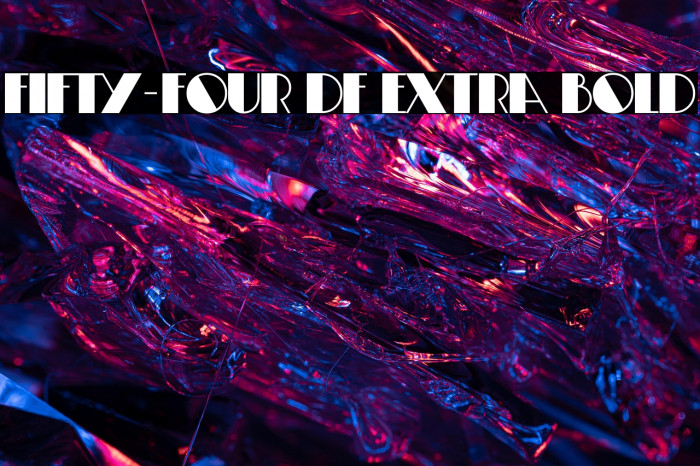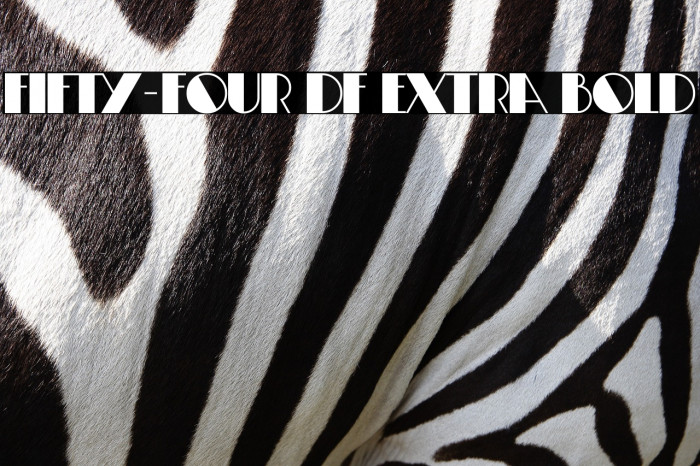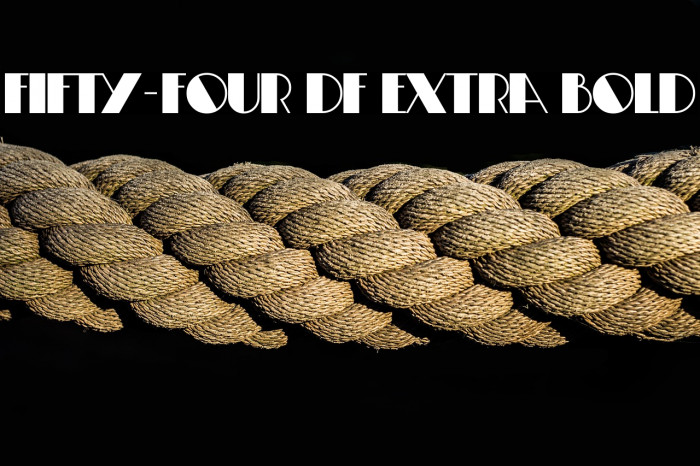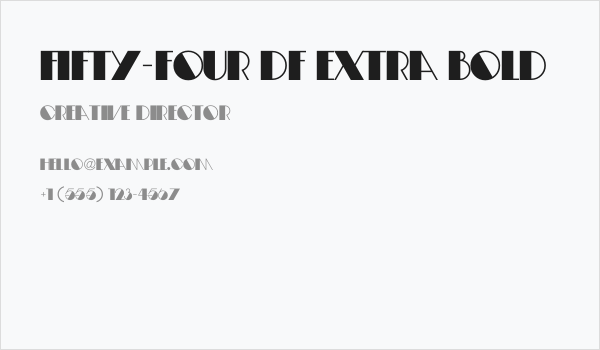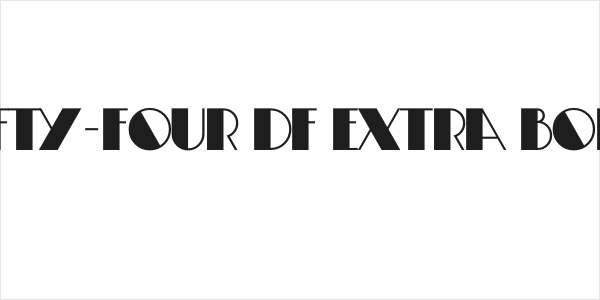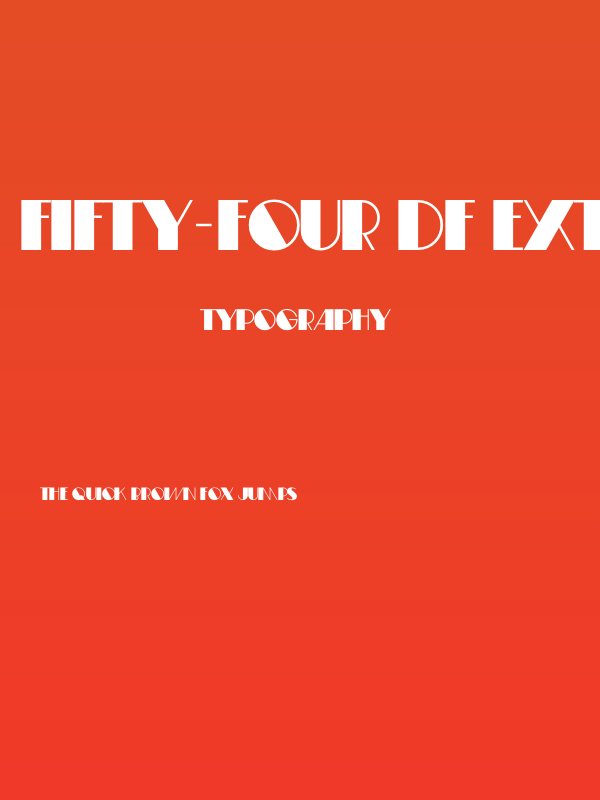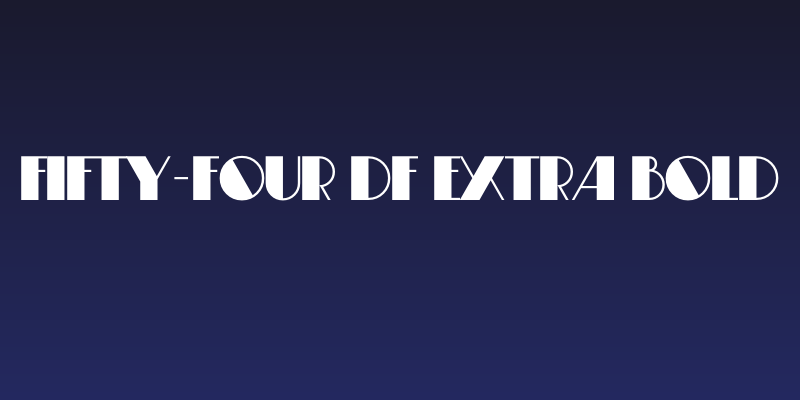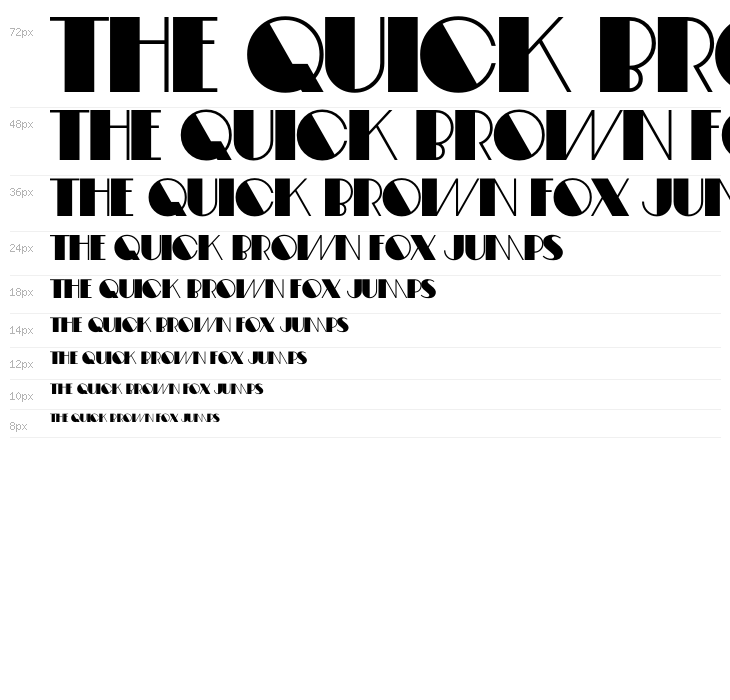
Fifty-Four DF Extra Bold Font
Fifty-Four DF Extra Bold Description
This font features a striking geometric design with a bold and modern aesthetic. The characters are constructed with sharp angles and clean lines, creating a sense of precision and contemporary style. The uppercase letters are particularly distinctive, with unique cuts and shapes that give the font a futuristic feel. The numbers and special characters maintain this geometric theme, ensuring consistency across all glyphs. This font is ideal for making a strong visual impact, with its high contrast and bold weight drawing attention to any text it is used in.